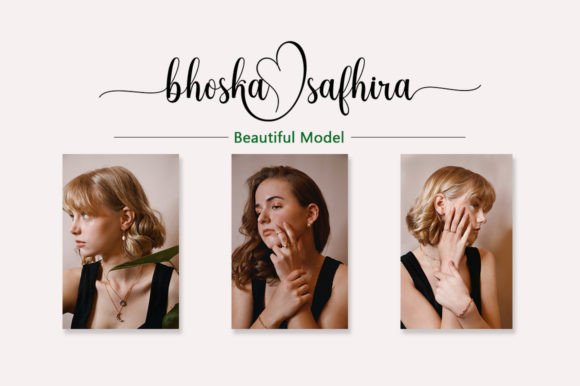
Romance History Font
Introducing Romance History – Font Duo is a combination of elegant, luxurious, modern sans serif with a beautiful handwritten font. It can be used to create almost any type of design project such as printed materials, wedding cards, business cards, logos, and more.
Do you want to create greeting cards or package designs, brand identity, craft designs, DIY projects, book titles, wedding fonts, vintage pop designs, retro designs, or any purpose to make your art/design projects look beautiful and modern? Feel free to play with this font!